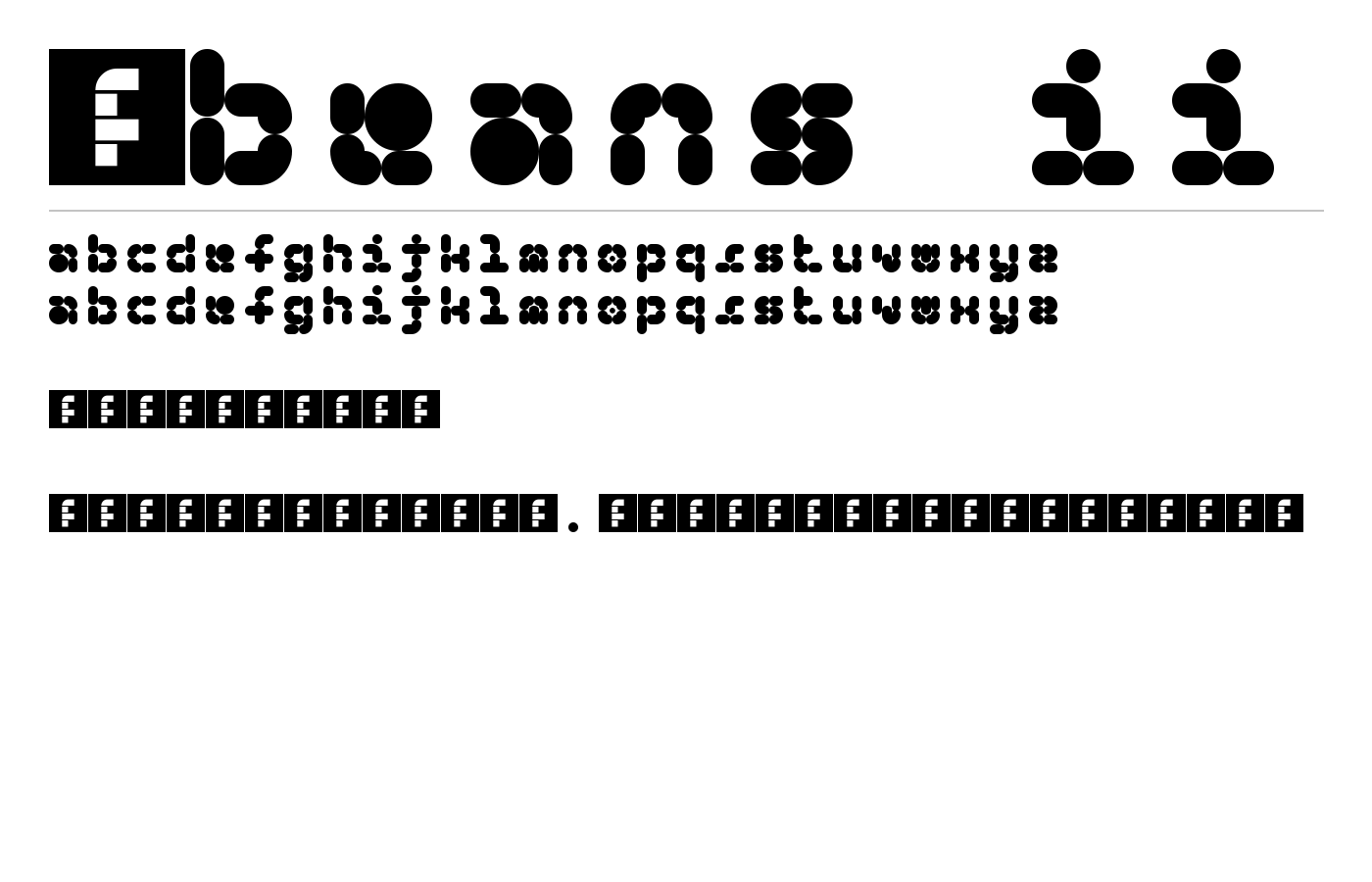
5Beans II is a bold, playful sans-serif font characterized by its rounded, bean-like shapes that give a soft, friendly appearance. Its heavy weight and compact, bubbly letterforms make it ideal for eye-catching headlines, logos, and creative projects where a fun and approachable style is desired. This unique, whimsical font works well in branding and design contexts that aim to convey warmth and charm with a modern twist.
5Beans II Font
About 5Beans II Font
| Designer | Noah - 11 year old typomaniac |